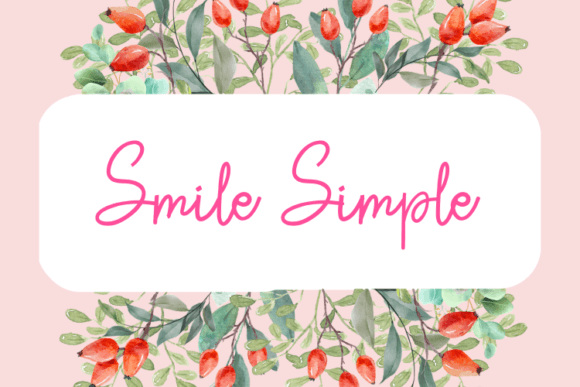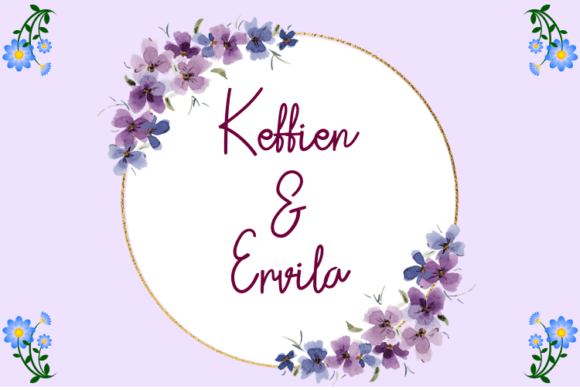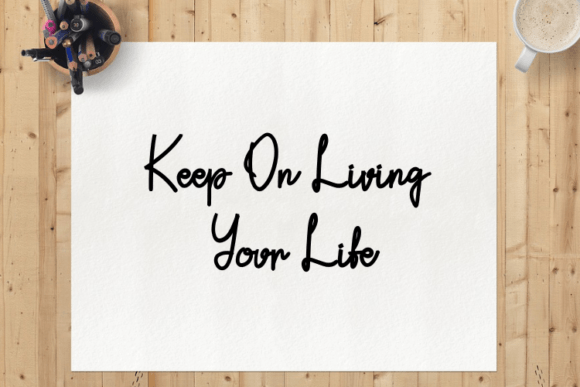
Introducing Smile Simple Font
The Smile Simple Font is a script typeface that exudes a timeless simplicity and a contemporary allure. Its clean and modern design makes it a versatile choice for a wide range of design applications. Whether you’re in need of an elegant and luxurious logo, eye-catching book or movie title designs, branding for fashion labels, layouts for magazines, stylish clothing tags, inspirational fonts for quotes, and much more, Smile Simple is your go-to typeface for projects that demand sophistication and style.
Why Choose This Typeface?
- Timeless Simplicity: Smile Simple adds elegance to your designs, making it suitable for logos, titles, branding, and more.
- Versatile Usage: This font provides a visually captivating choice for various creative endeavors, allowing you to infuse your designs with sophistication and style.
Applications of Smile Simple
- Logo Design: Use this font to create elegant logos that capture attention with clarity and style.
- Book and Movie Titles: Enhance your titles with a timeless appeal that complements visual storytelling.
- Fashion Branding: Perfect for creating chic branding materials that reflect luxury and elegance.
The Impact of Using Smile Simple
This font elevates your designs by making them visually captivating and memorable. It becomes a reliable tool for designers seeking to create projects that stand out with elegance. Its balanced form ensures your designs are both refined and captivating.
The Value It Brings
This typeface excels in combining contemporary design aesthetics with classic elegance. By choosing Smile Simple, you ensure your designs are not only visually appealing but also sophisticated and unique.
This font is also ideal for various creative projects beyond traditional uses. It can enhance digital designs with its elegant flair, making it suitable for websites, brochures, or mobile interfaces. The Smile Simple Font adapts well to different screen sizes while maintaining its charm. As design trends evolve, this font remains relevant due to its timeless appeal, balancing style with functionality effectively.